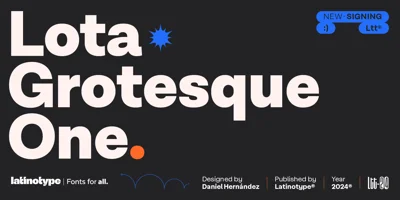
Lota Grotesque One Font
Lota Grotesque One Font is a modern sans-serif typeface that offers a refined, balanced design with clean lines and a geometric structure. Perfect for branding, logos, editorial design, packaging, and digital content, this font has a contemporary yet timeless appeal. Lota Grotesque One combines minimalism with excellent legibility, making it ideal for both print and digital media.
With Lota Grotesque One Font, you’ll receive a complete set of uppercase letters, lowercase, numbers, and essential punctuation, providing versatility for a wide range of creative projects. Whether you’re designing a corporate identity, building a website, or creating sleek marketing materials, this font ensures clarity and a professional look.
Add modern elegance and versatility to your design projects with Lota Grotesque One Font. Its clean, geometric design makes it a perfect choice for projects that need a modern, professional, and refined touch.